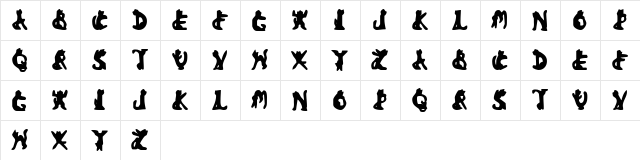
Black Feline Regular
Design Context for Black Feline Typeface
Black Feline is a composed and adaptable typeface that performs quietly and consistently across a wide range of design contexts.